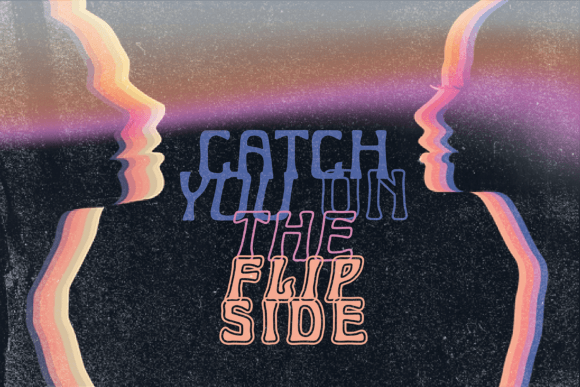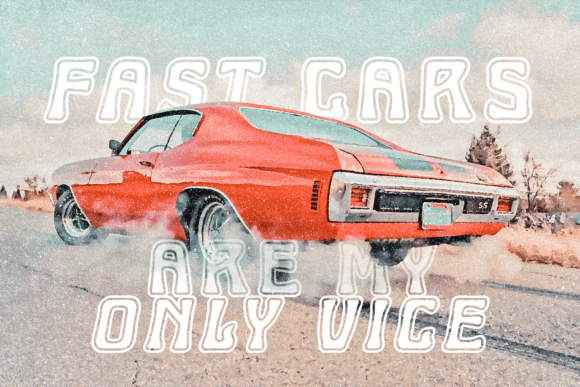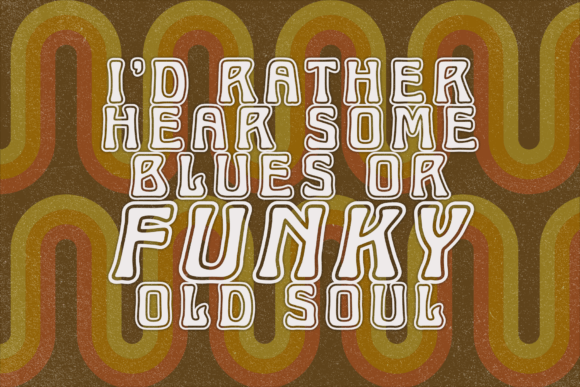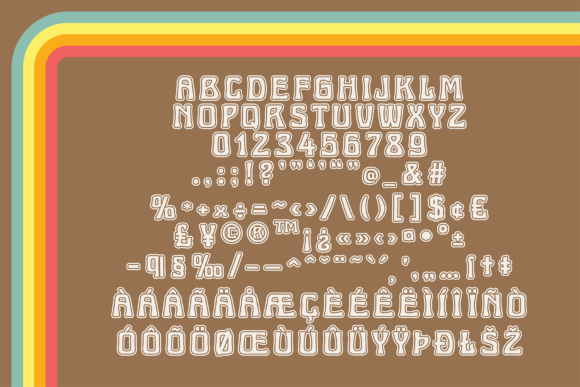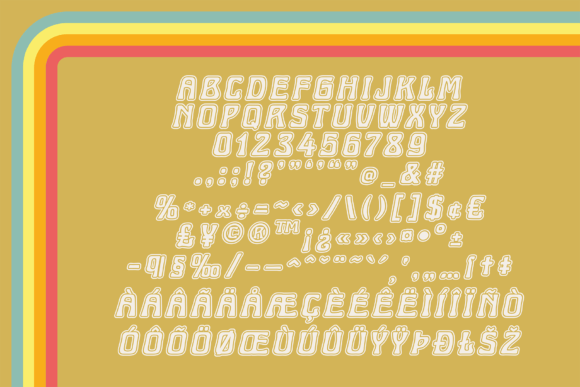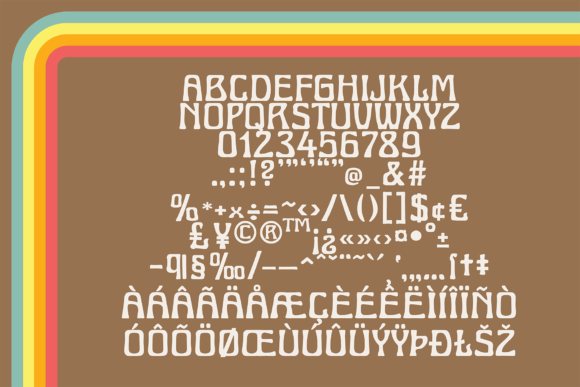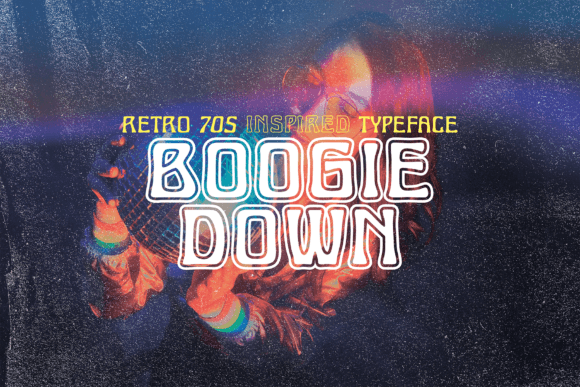
The Ultimate Retro Revival: Boogie Down Font
I’ll never forget the design project that led me to discover the Boogie Down font. I was working on a retro-themed party invitation, and I just couldn’t find the right font to capture that funky, 70s vibe. That’s when I stumbled upon Boogie Down, and it instantly became my go-to. The playful, all-caps letters seemed to scream “fun” and “nostalgia,” and I knew I had found the perfect fit.
So, what makes Boogie Down so special? Here are a few things I absolutely love:
- ✨ It’s ridiculously fun and playful! The font’s retro vibe is perfect for adding a touch of nostalgia to any design.
- ✅ The letters are bold and eye-catching, making it perfect for display text.
- 💥 It’s incredibly versatile – use it for party invitations, posters, social media graphics, or even branding materials.
Of course, no font is perfect, and Boogie Down has a few minor quirks:
- 🤔 The font can be a bit overwhelming for body text – it’s best used for headlines or short phrases.
- ⚠️ Some of the letters may not be suitable for small sizes, as they can become a bit distorted.
One of the best things about Boogie Down is its OpenType features and glyphs. With a little experimentation, you can unlock a range of stylistic alternates, swashes, and other flourishes to take your designs to the next level.
The Designer Inspiration Behind Boogie Down
While I couldn’t find any information on the actual designer behind Boogie Down, it’s clear that they were inspired by the funky, carefree spirit of the 1970s. The font’s playful, all-caps letters seem to capture the essence of a bygone era – one that’s perfect for designers looking to add a touch of nostalgia to their work.
| Q: Is Boogie Down suitable for body text? | A: While Boogie Down is a beautiful font, it’s best used for display text or short phrases. For body text, you may want to choose a more legible font. |
Overall, Boogie Down is an incredible font that’s sure to add a touch of retro fun to any design project. With its playful, all-caps letters and bold personality, it’s the perfect choice for designers looking to make a statement.